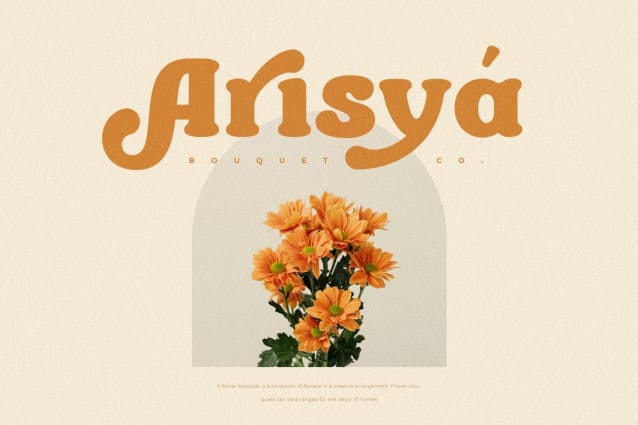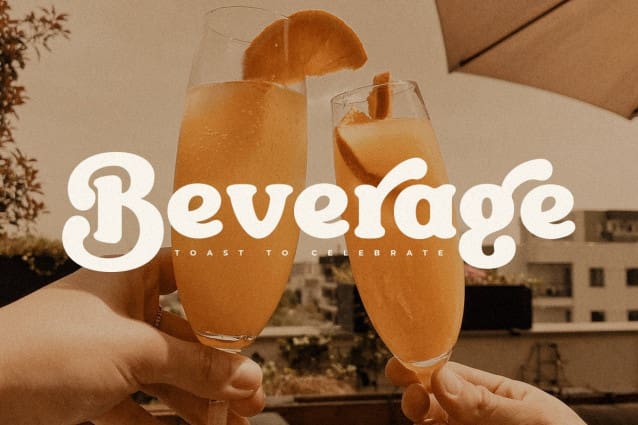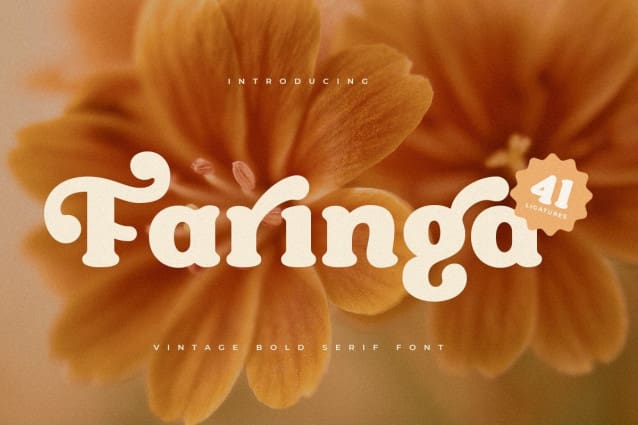
Faringa Retro Font
Faringa Retro Font, is a bold new vintage font with a retro style inside. Extraordinary style with vintage and retro serif fonts, to make your design even more remarkable. Our goal is to analyze all the fonts that can leverage any logo design for a more modern and unique look. We have prepared this font with all vintage characters to help you create a creative style.